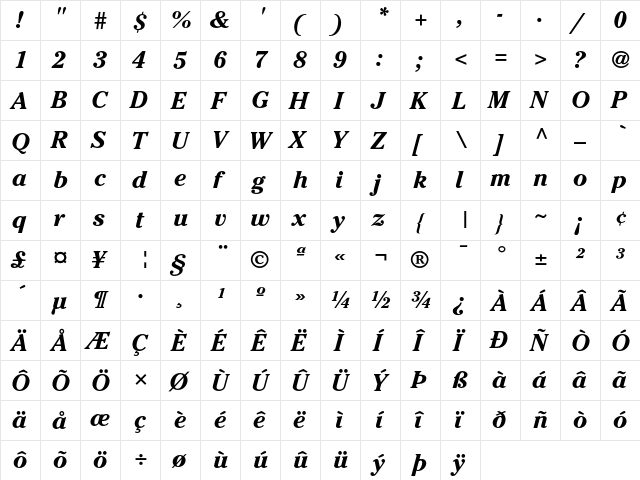
ITC Cheltenham Bold Italic Font Preview
Design Context for ITC Cheltenham Typeface
ITC Cheltenham offers clean, dependable letterforms without strong stylistic allegiance, making it a practical choice for designers who need flexibility. The slanted form adds forward momentum and visual energy. The heavy weight commands attention and anchors typographic hierarchies.
Pro Tip: Try ITC Cheltenham for annotation and caption copy alongside an upright companion — the contrast in angle creates a dynamic but ordered typographic system.